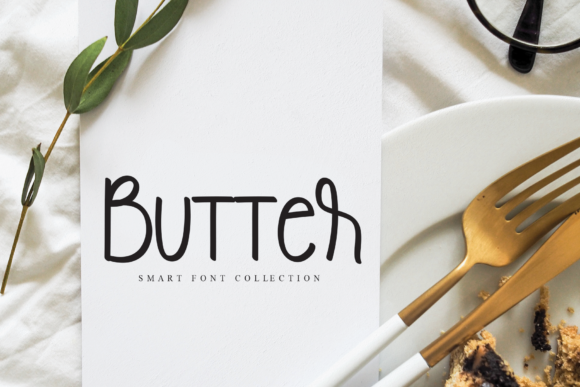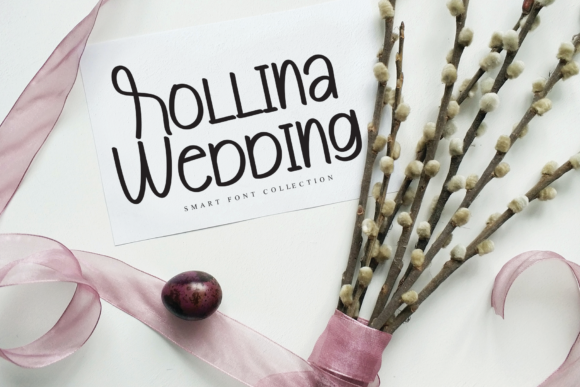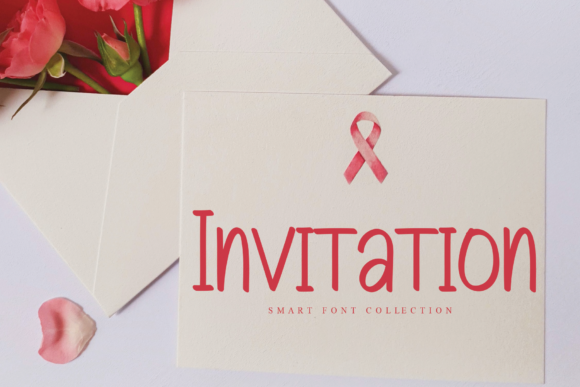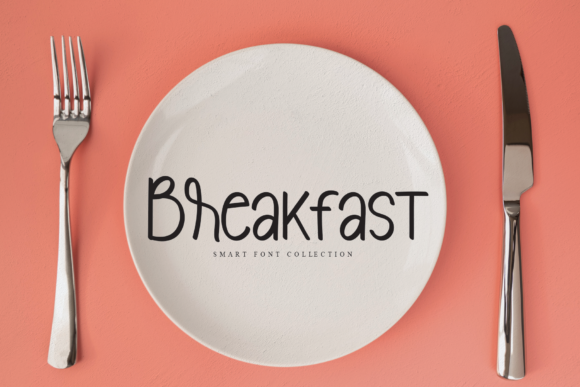
Introduction to Remarkable Font
Do you remember that moment when you’re working on a creative project and you need just the right touch to bring it to life? Maybe it’s a beautifully designed poster for a friend’s birthday, or a social media graphic for a brand’s new launch. Whatever it is, you’re stuck on finding the perfect font to make it stand out.
Enter the Remarkable Font, a delightful handwritten font that’s sure to brighten up your designs. Its sweet and full of life style makes it a wonderful choice for adding a personal touch to your work. Whether you’re working on a high-quality design project or just need a simple yet effective font for a free download, the Remarkable Font is a valuable resource for any designer.
Key Features of Remarkable Font
- High-quality design: The Remarkable Font is designed to meet the needs of creative projects, offering a unique and professional look.
- Unique characteristics: The Remarkable Font features a distinctive and elegant design, making it an excellent choice for creative projects that require a touch of sophistication.
Honest Review: Remarkable Font
As a designer, I’m always on the lookout for high-quality design resources to elevate my creative projects. The Remarkable Font is a great find, and I’m excited to share my thoughts on it.
What works well: ✨ The Remarkable Font is incredibly versatile, with a range of styles and weights that make it perfect for everything from headers to body text. The font is also highly legible, even on small screens or in tiny sizes. Plus, it’s a free download, which is a major plus for designers on a budget.
- Highly legible, even in small sizes or on small screens
What doesn’t work so well: ⚠️ While the Remarkable Font is excellent for most design tasks, it can be a bit too ornate for certain projects. Additionally, some users may find the font’s unique style takes some getting used to.
Overall, I’m thoroughly impressed with the Remarkable Font. It’s a fantastic addition to any designer’s toolkit, and I’d highly recommend it for any creative project.
Common Use Cases for the Remarkable Font
The Remarkable Font is ideal for use in a variety of design projects, including logos, business cards, and marketing materials. Its high-quality design and transparent background make it an excellent choice for designers looking to add a touch of elegance and sophistication to their work.